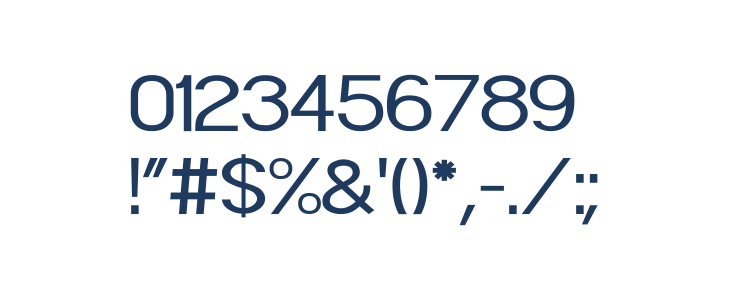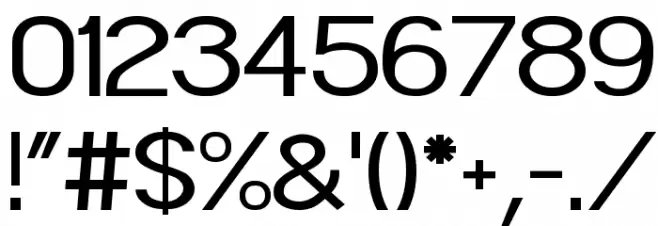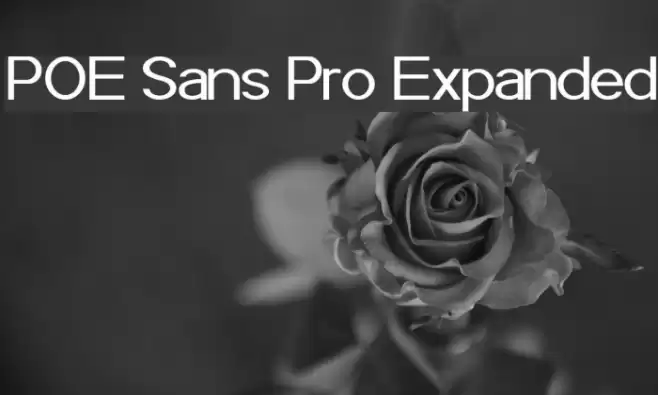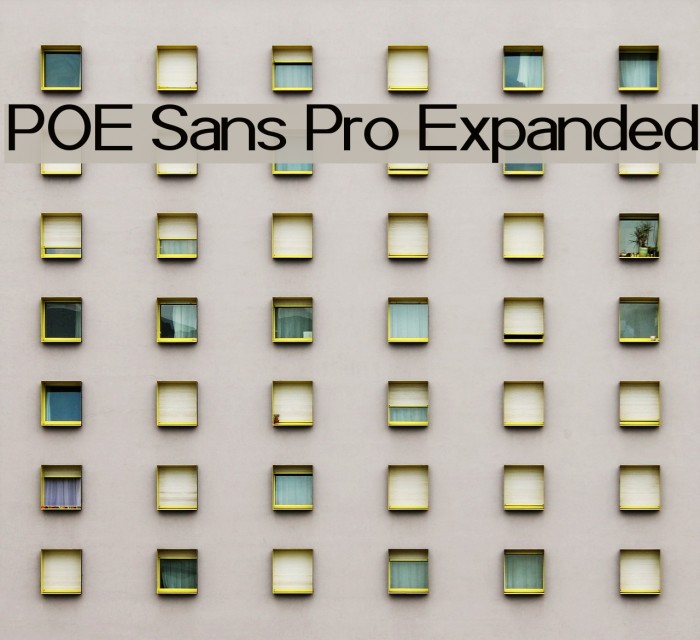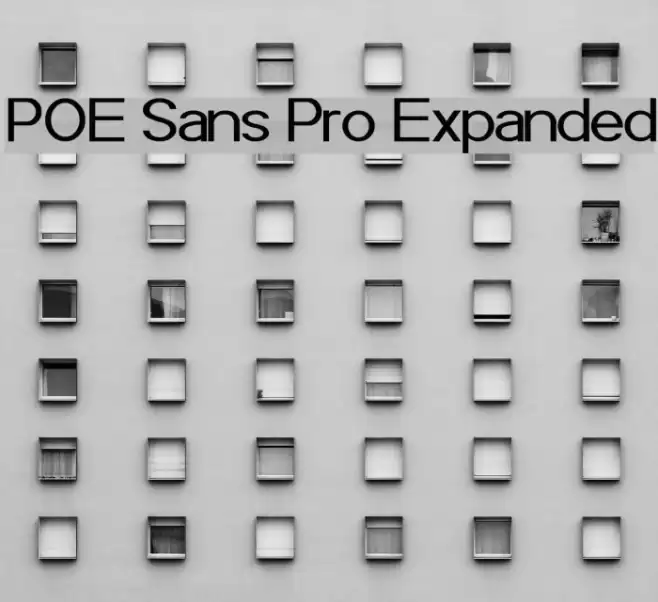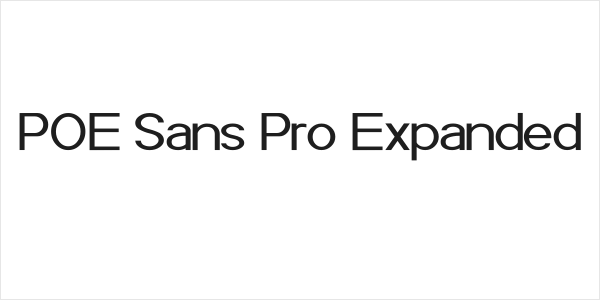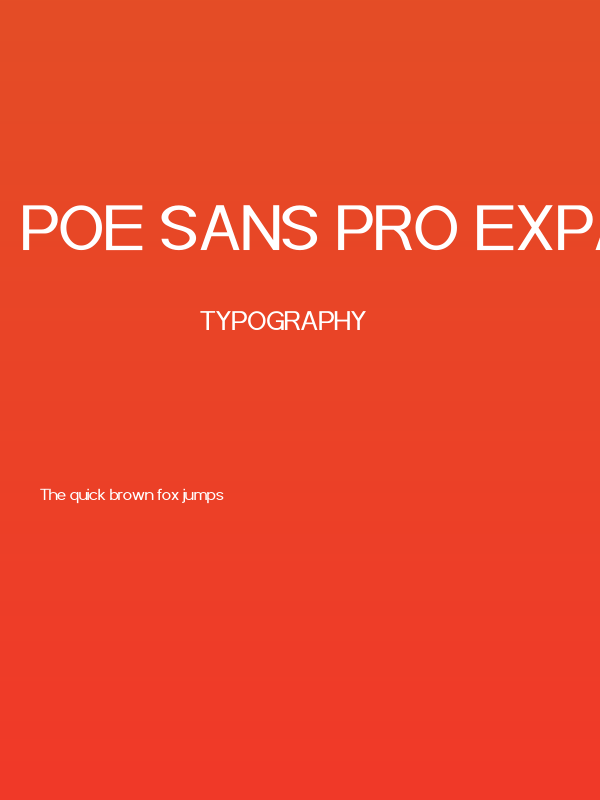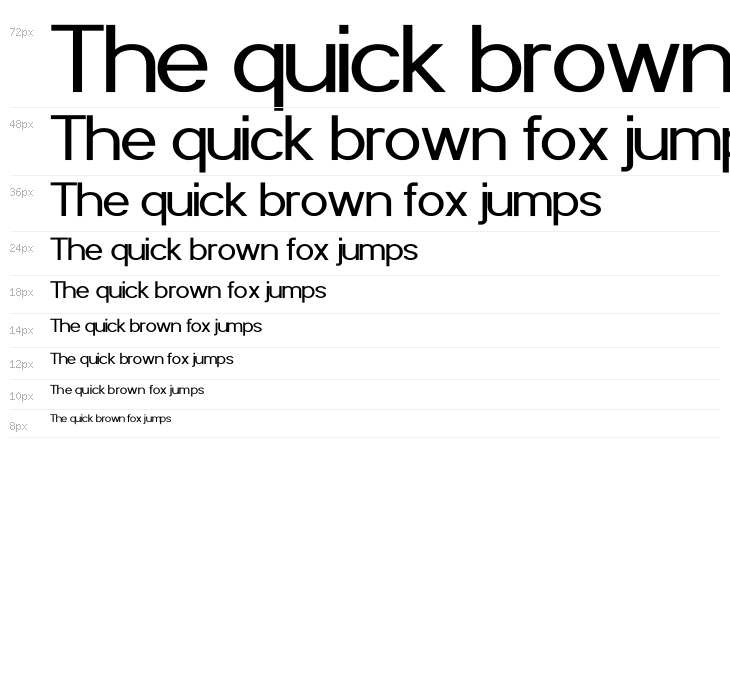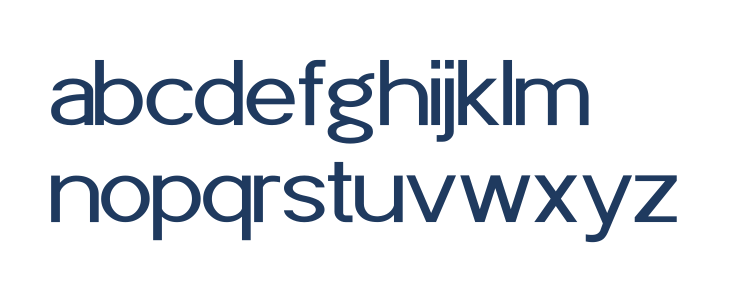
POE Sans Pro Expanded Font
POE Sans Pro Expanded Description
This typeface exhibits a clean and modern aesthetic with a sans-serif style. The characters are evenly spaced and feature a uniform stroke width, contributing to a balanced and harmonious appearance. The uppercase letters are bold and assertive, while the lowercase letters maintain a friendly and approachable look. The numerals are clear and legible, making them suitable for various applications. Special characters are well-defined, ensuring versatility in design projects. The overall impression is one of professionalism and clarity, making it ideal for both digital and print media.
| Proposed Projects | Ideal for branding, web design, advertising, and editorial layouts. |